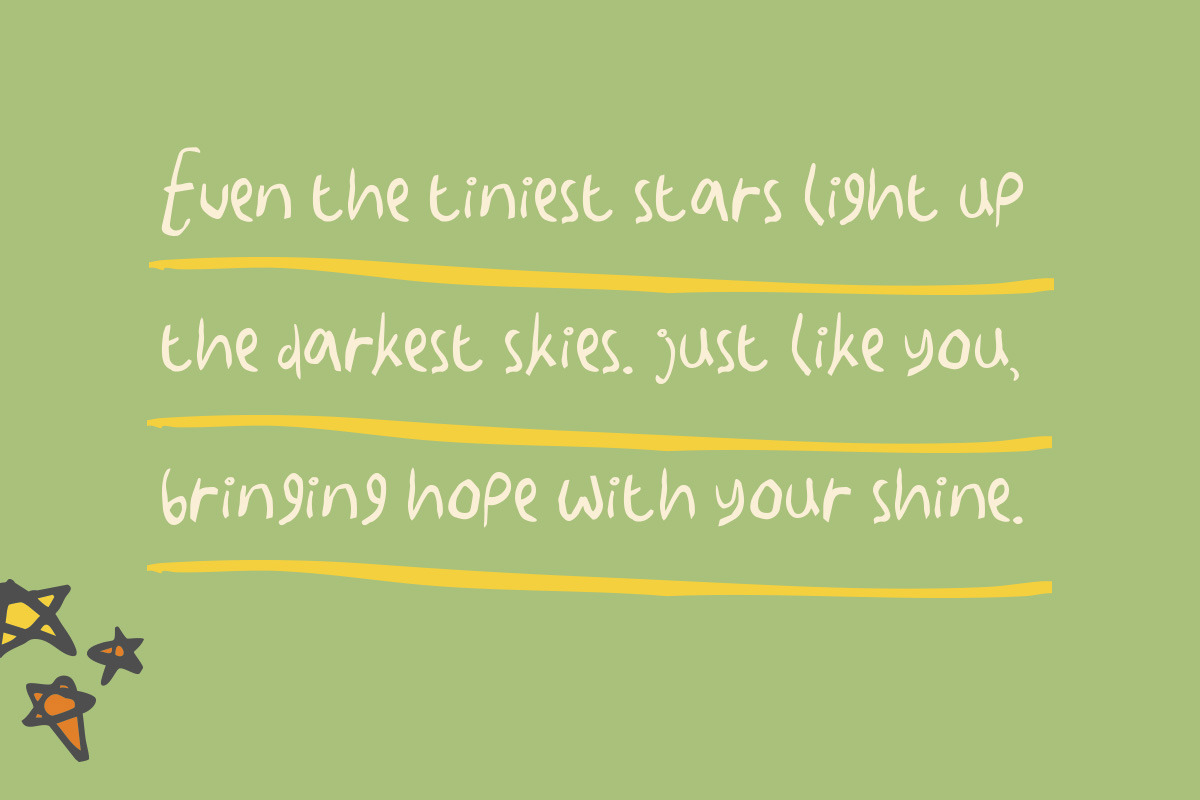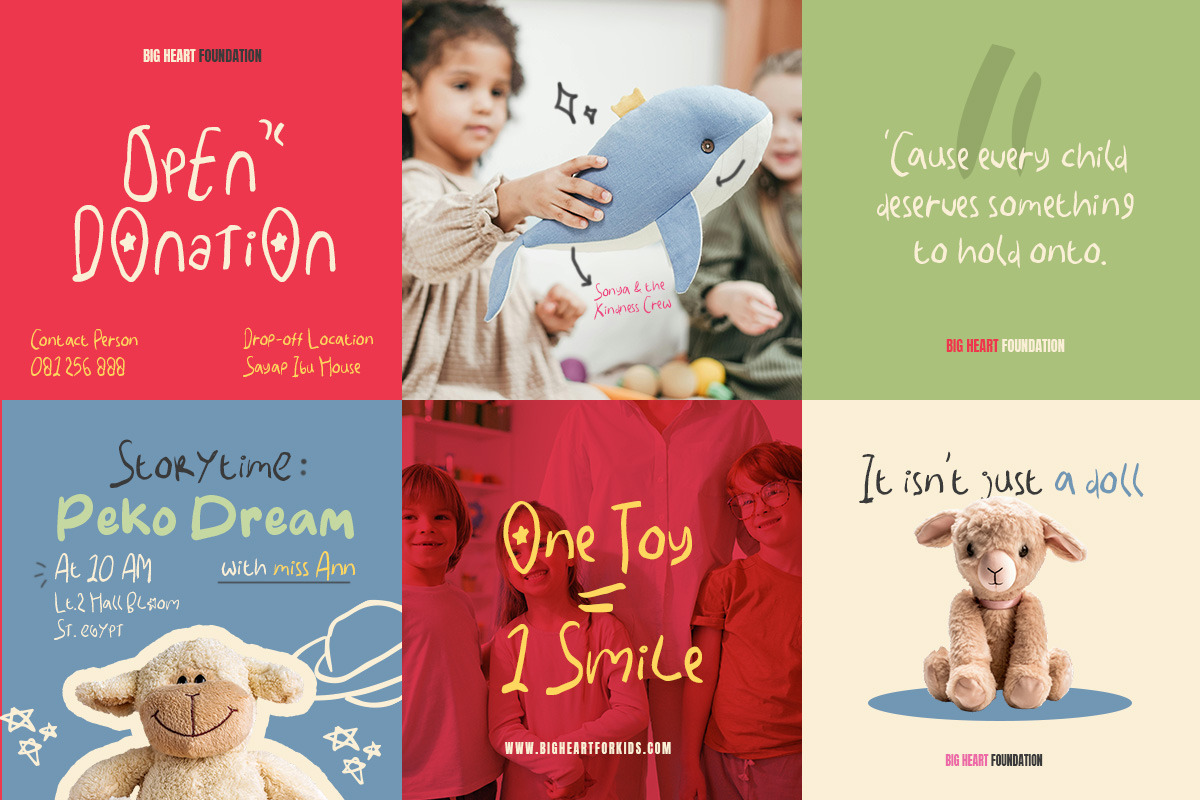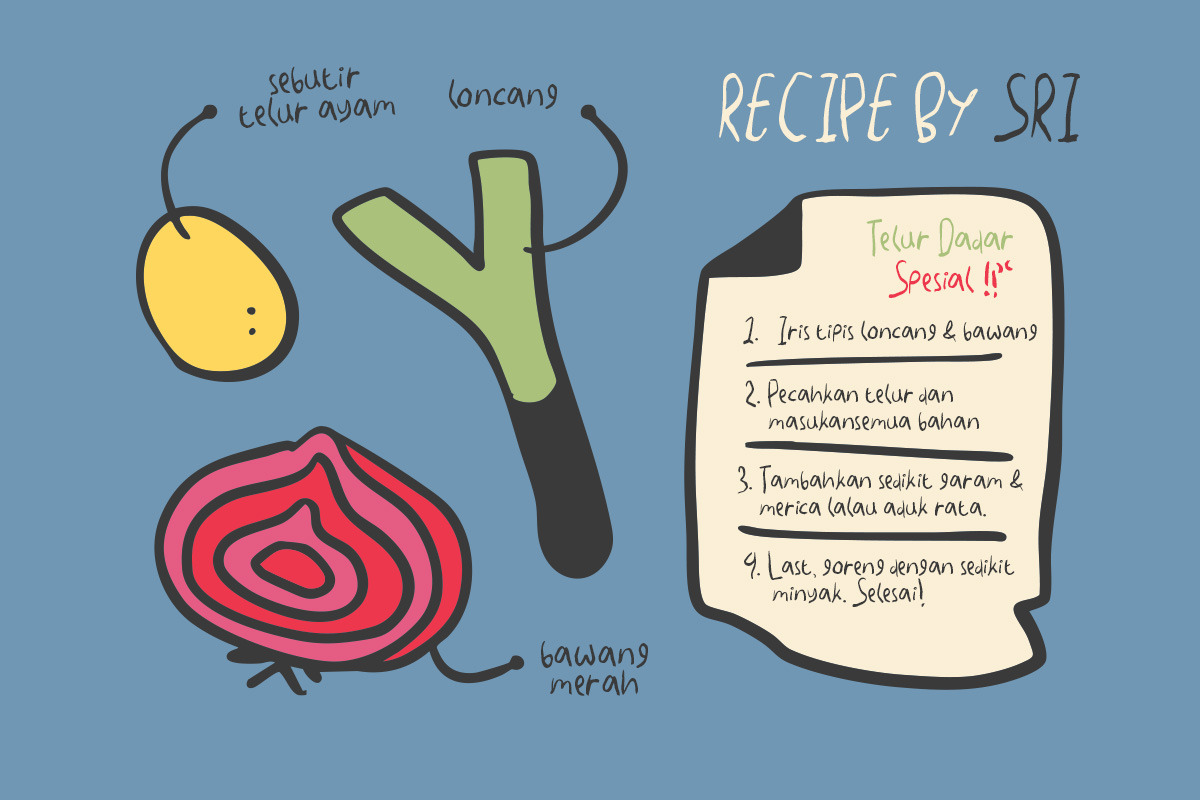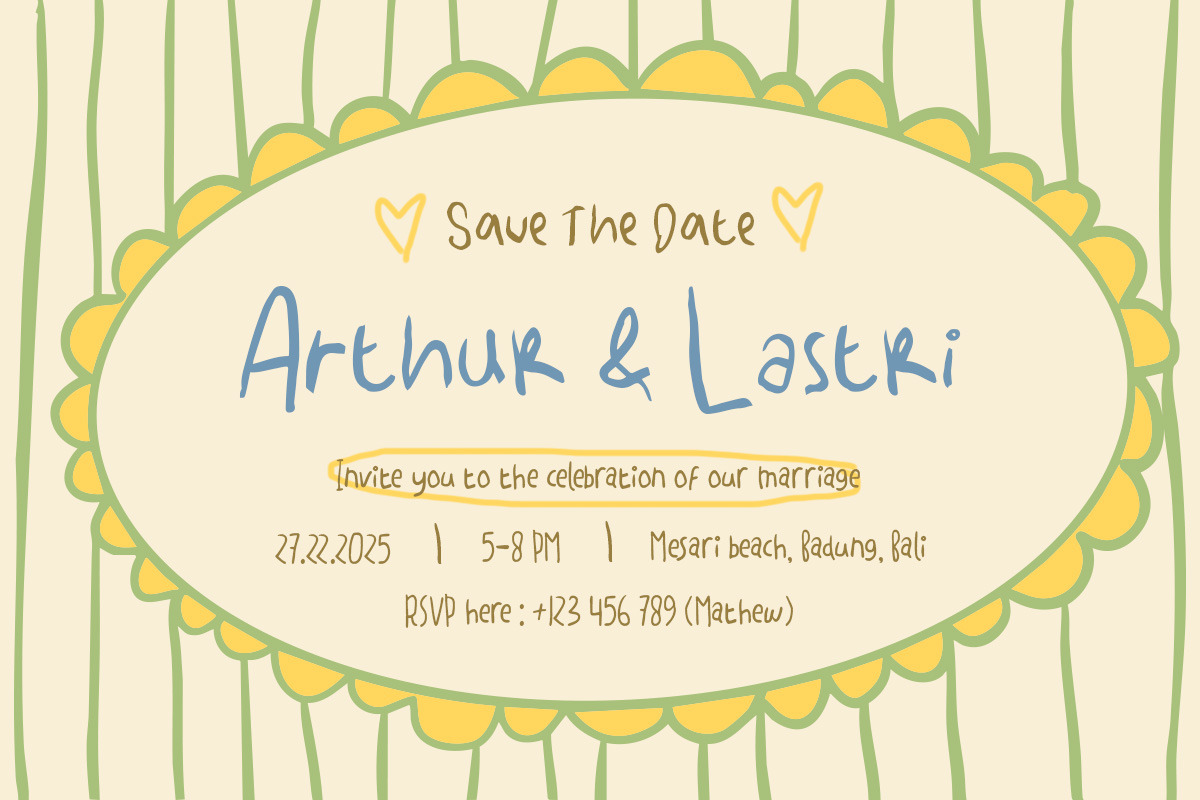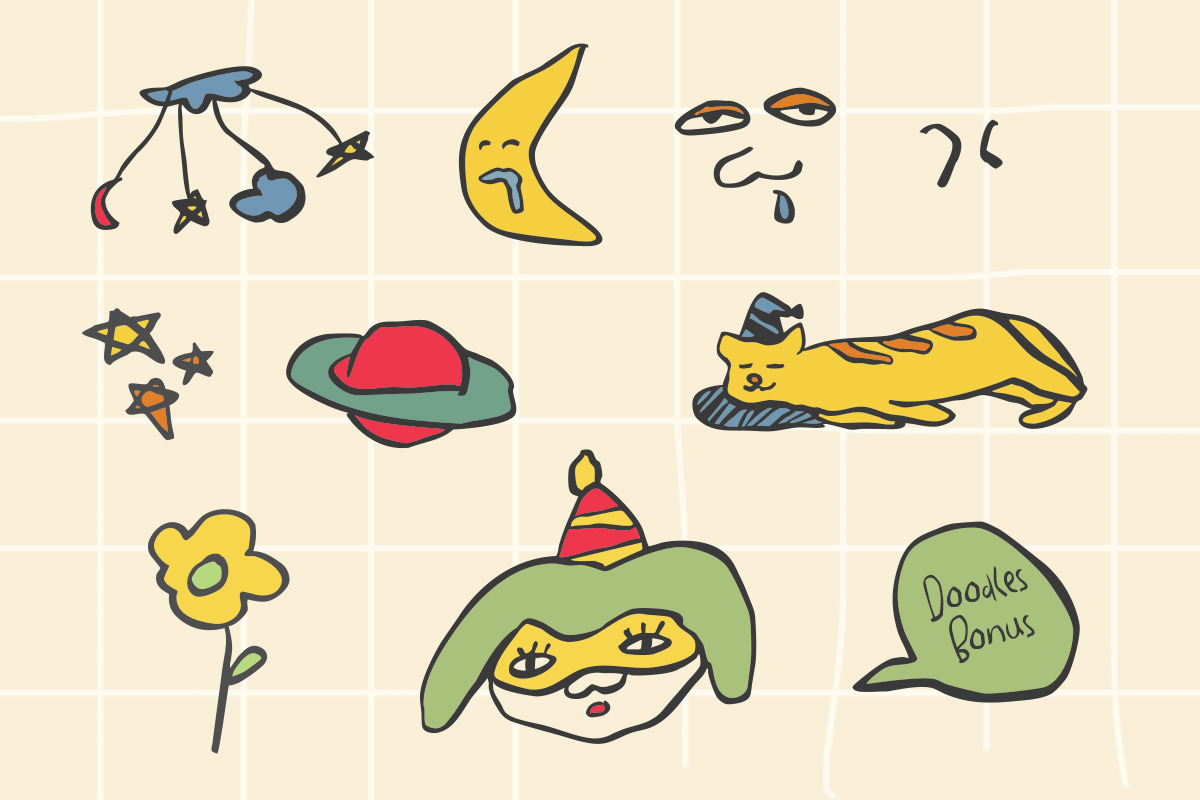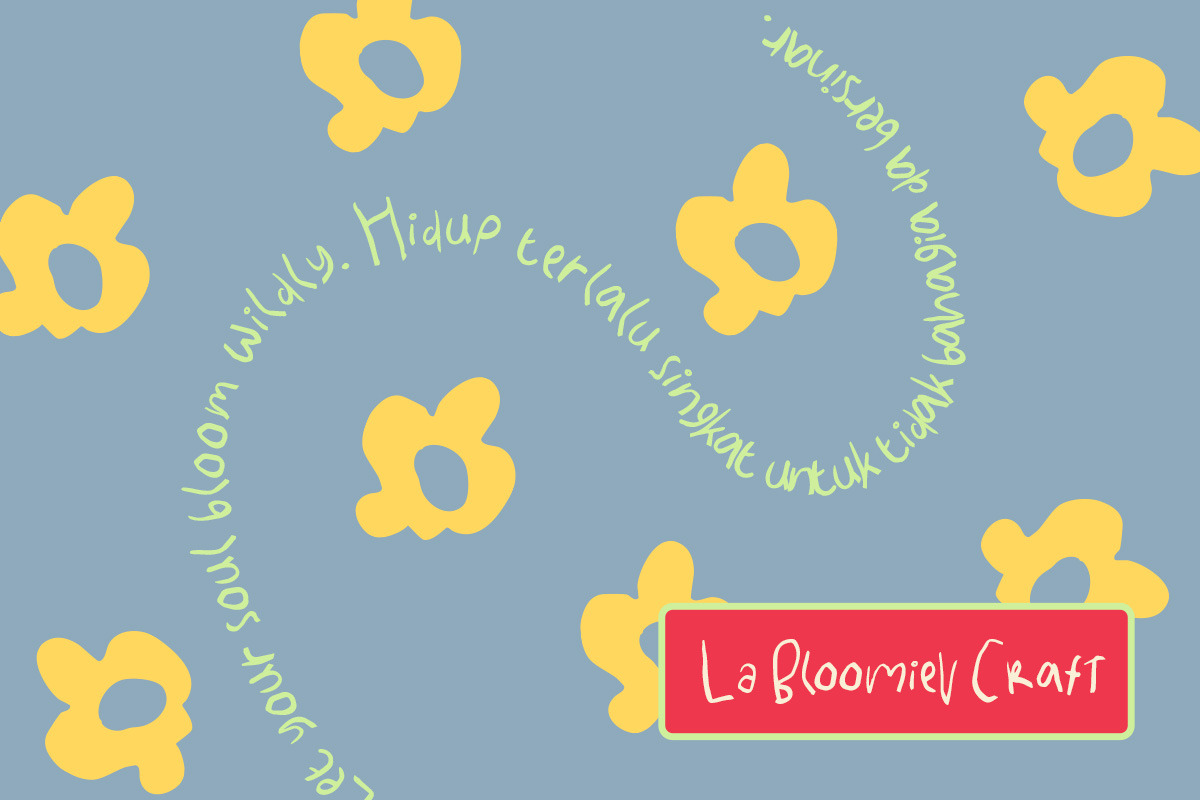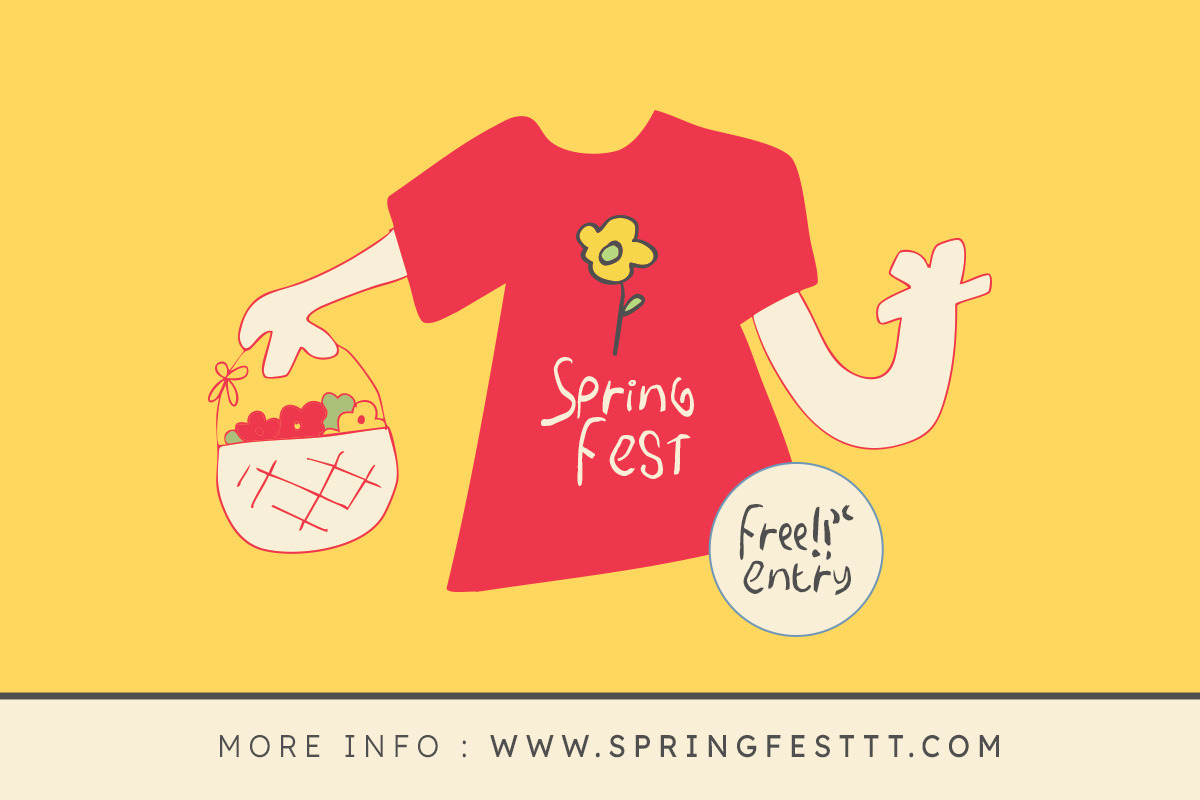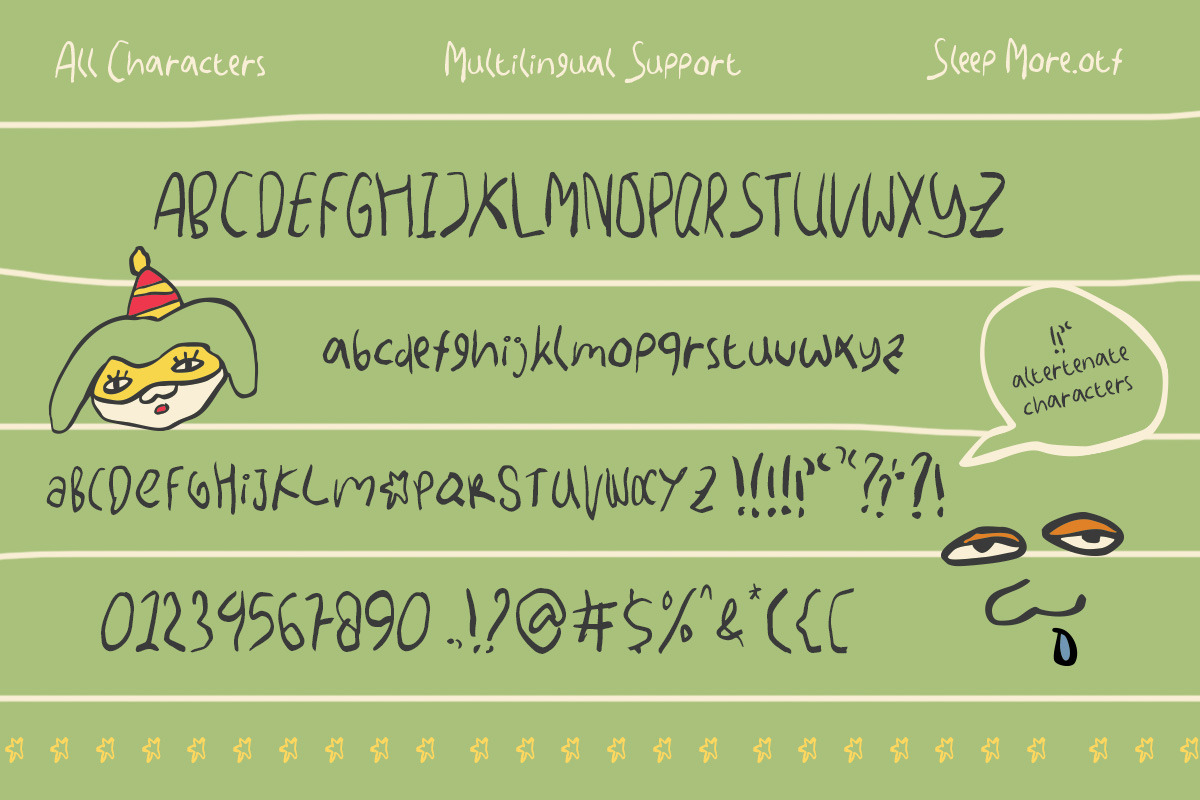
Sleep More - Kiddos' Handwriting
Once upon a nap... there was a font called Sleep More — soft as a pillow and sweet as a dream! With its playful handwritten strokes and doodle buddies (yes, sleepy cats and twinkly stars included!), this font brings bedtime magic to life. Whether you're crafting a storybook, making sleepover invitations, or designing cute labels, Sleep More makes everything feel warm, calm, and wonderfully whimsical.
Features :Uppercase & lowercase, Numbers and punctuation, Alternates or Ligatures, Multilingual support & PUA encoded